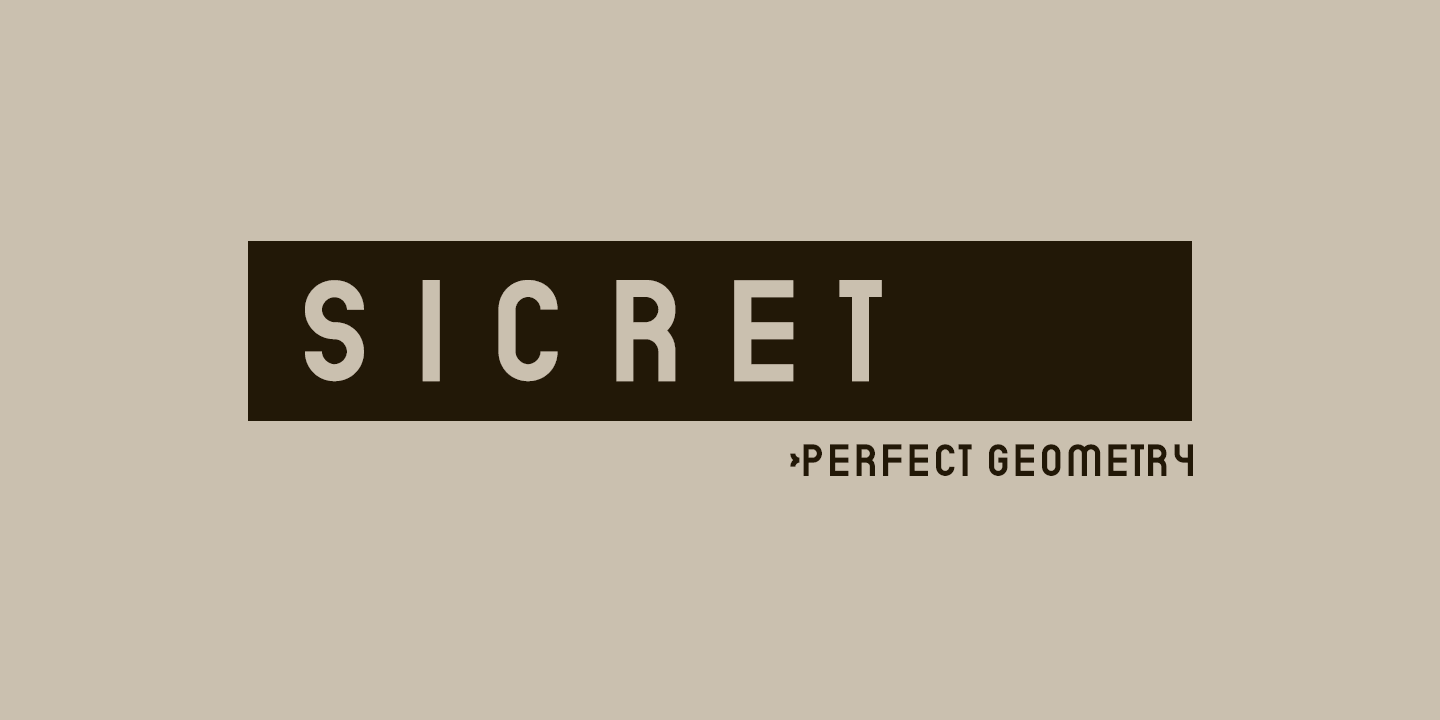
Perfect for logos, headlines, posters, branding projects, urban apparel, and digital media, Sicret Font Free Download commands attention with its striking style and modern flair.
What makes this font exciting is its distinct angular forms and high-impact presence, which lend your designs an energetic and contemporary vibe. It’s a font that doesn’t just communicate — it shouts your message loud and clear.
The Sicret font family includes Regular, Bold, Italic, and Outline styles, providing you with flexible options to create layered and eye-catching typography.